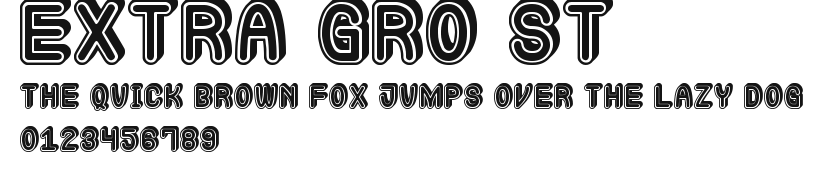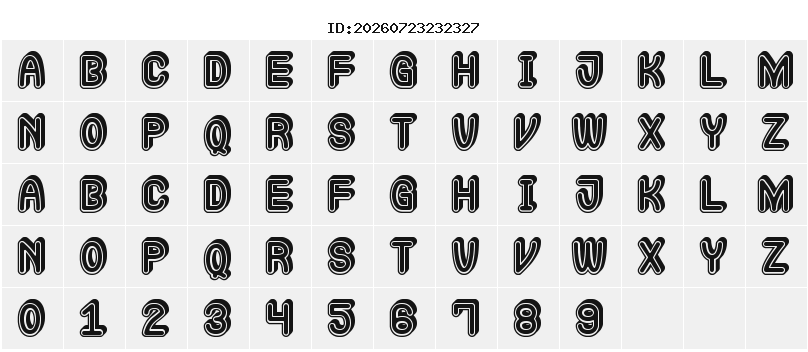
Extra Gro St Preview
• Font Name: Extra Gro St
• Full Font Name: Extra Gro St
• Designer: This font is an original work of southype dot com
About Extra Gro St.ttf
Extra Gro St.ttf is a modern, elegant sans-serif font designed for ultimate readability and visual harmony. Perfect for branding, headlines, web design, and print materials.